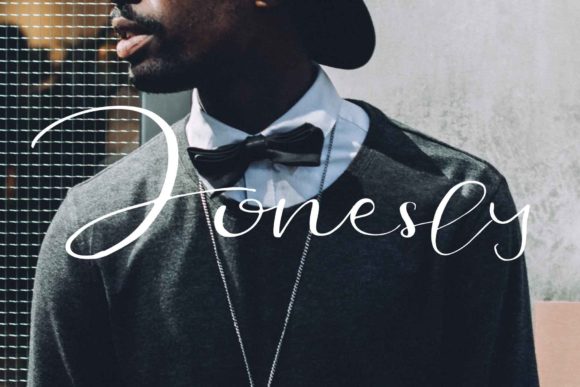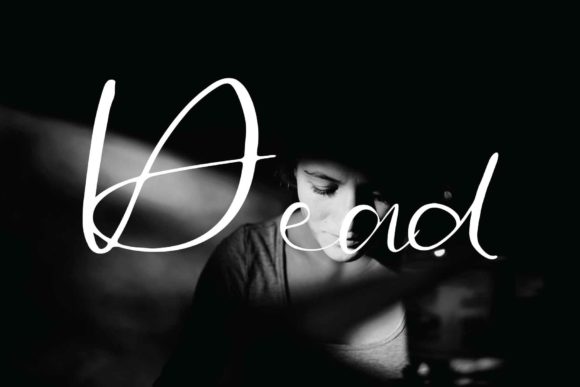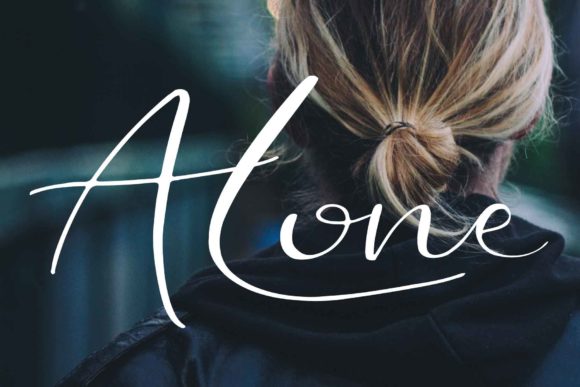
HomeScript FontsJonesly Font Script Fonts Jonesly Font FacebookXPinterestWhatsApp Jonesly Font Poster 2 Jonesly Font Poster 3 About Jonesly Font Jonesly is a unique handwritten font, perfectly made for a big variety of font occasions! DOWNLOAD ON CREATIVE FABRICAThis font is sold and delivered by Creative Fabrica. Font Canyon may earn a commission if you buy through this link. People also explored Grocers Script Fortune Font Gold Pen Font Sharaza Font Always Winter Font Laguna Beach Font Monogram Ninelia Font Oklean Font Obligod Outline Black Font 354 0 TagsJonesly Font Previous articleHiven FontNext articleOrlando Font LEAVE A REPLY Cancel reply Comment: Please enter your comment! Name:* Please enter your name here Email:* You have entered an incorrect email address! Please enter your email address here Website: Save my name, email, and website in this browser for the next time I comment. Personal Use Free Nuku Nuku Personal Use Free Read more about this font Bellarin Personal Use Free Read more about this font Foo Personal Use Free Read more about this font Veronica Personal Use Free Read more about this font BLOG Transform Your Website: Elevate Your Typography with 7 Best Web Font Generators Are you ready to transform your website's typography from ordinary to extraordinary? Great! Today, we're diving into the world of web font generators, which... Elegant Wedding Invitation Fonts – Handwritten & Script Fonts The 10 Best Handwriting Fonts to Add Personality to Your Designs Top 7 Google Fonts Alternatives for Faster and Privacy-Friendly Web Design (2025)